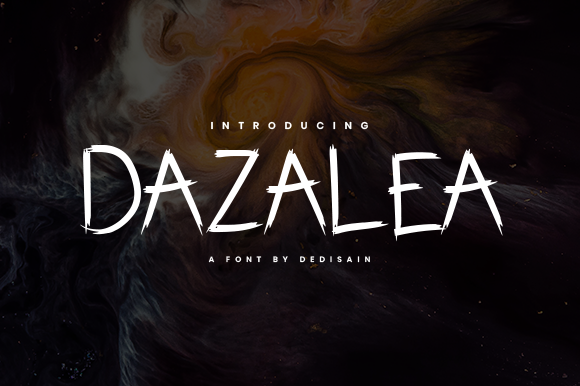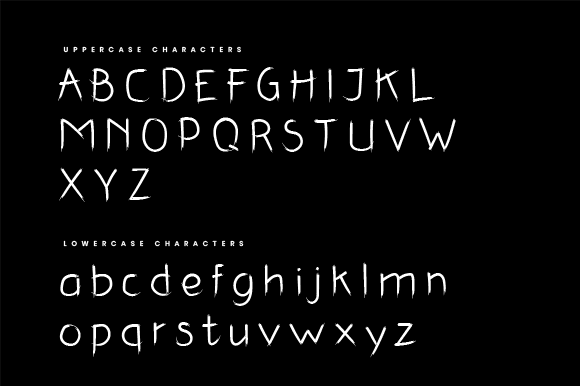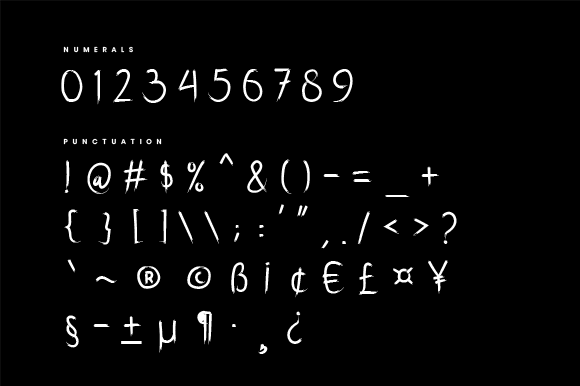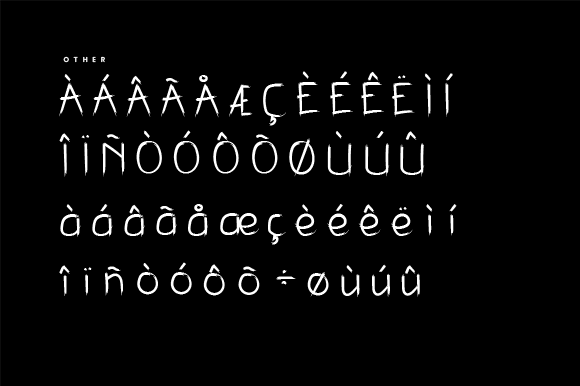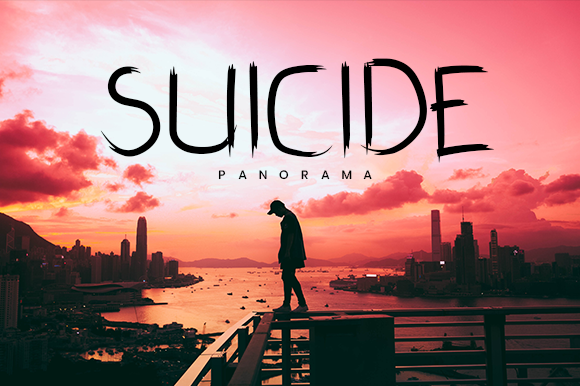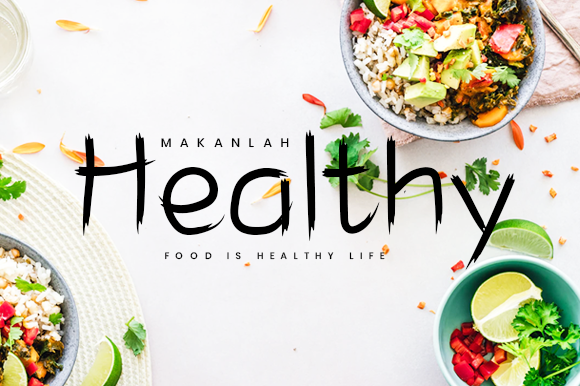
HomeScript FontsDazalea Font Script Fonts Dazalea Font FacebookXPinterestWhatsApp Dazalea Font Poster 2 Dazalea Font Poster 3 Dazalea Font Poster 4 Dazalea Font Poster 5 Dazalea Font Poster 6 About Dazalea Font Dazalea is a simple, yet memorable brush font that’s perfect for turning your design idea into an eye-catcher! DOWNLOAD NOW People also explored Semmily Font Brother Font Botswana Font Rosted Charm Font Sweet Sugar Font Unpredictable Font Adhaleo Font Foxglove Script Font Boldita School Font 384 0 TagsDazalea Font Previous articleBicillesta FontNext articleStarlight Font LEAVE A REPLY Cancel reply Comment: Please enter your comment! Name:* Please enter your name here Email:* You have entered an incorrect email address! Please enter your email address here Website: Save my name, email, and website in this browser for the next time I comment. Personal Use Free Sweety Blue Personal Use Free Read more about this font Tomatoes Personal Use Free Read more about this font Hysteria Santa Personal Use Free Read more about this font Colourbars Personal Use Free Read more about this font BLOG Best Fonts for YouTube Videos: Make Your Thumbnails Stand Out Best Fonts for YouTube Videos: Make Your Thumbnails Stand Out Choosing the right font can make a massive difference in how your YouTube videos perform.... How to Install and Use Fonts on Windows, macOS, and Web Projects How to Cut Any Font on Cricut: Convert a Font to SVG (Free) Top 7 Google Fonts Alternatives for Faster and Privacy-Friendly Web Design (2025)